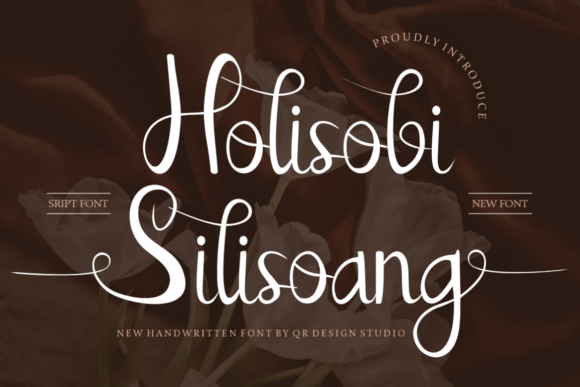
Unleash the elegance and charm of Holisobi Silisoang, a font that exudes boldness and authenticity. Handcrafted with meticulous attention to detail, this script handwritten font is the perfect embodiment of artistry and sophistication.
With its sweeping curves and dynamic lines, Holisobi Silisoang adds a touch of allure to any design project. Its bold presence commands attention, making it ideal for creating logos, wedding invitations, and romantic designs that leave a lasting impression.
As a member of the script font family, Holisobi Silisoang possesses an inherent flow and grace that brings a sense of movement and fluidity to your designs. Its natural, hand-drawn aesthetic evokes a sense of authenticity and sincerity, making it an excellent choice for branding projects that seek to convey a genuine and heartfelt message.
Beyond its visual appeal, Holisobi Silisoang is also a font of exceptional versatility. Its ability to adapt seamlessly to a wide range of design styles makes it a valuable asset for any designer's toolkit. Whether you're working on a modern, minimalist website or a classic, elegant print layout, Holisobi Silisoang has the adaptability to complement and enhance your creative vision.
Experience the transformative power of Holisobi Silisoang today and elevate your designs to new heights of creativity and sophistication. Let this bold and authentic script font infuse your projects with a touch of charm and elegance that will captivate your audience and leave them in awe.